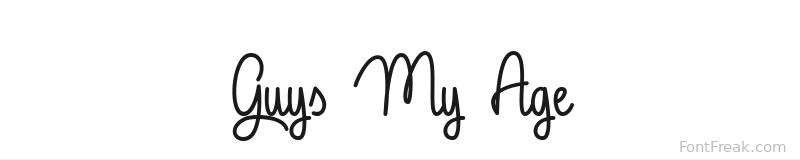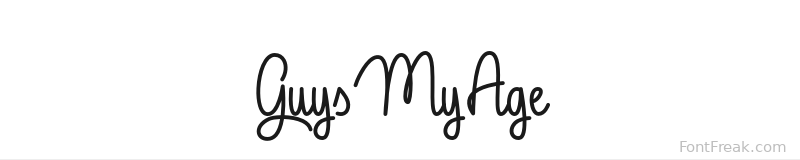
Guys My Age
The "Guys My Age" font by Misti Hammers is a captivating handwritten typeface that exudes a charming, playful character. This display font features a unique blend of fluid strokes and whimsical curves, making it an excellent choice for projects that require a personal touch. The overall stroke weight is moderately thick, providing a strong visual presence while maintaining legibility. The design incorporates varying contrast and spacing, contributing to its lively and engaging appearance. Decorative elements such as loops and playful swashes enhance its personality, making it stand out in any context.
This font is particularly well-suited for a variety of creative applications. It shines in wedding invitations, where its romantic flair can set the perfect tone for a special day. Additionally, it works beautifully on greeting cards, allowing for heartfelt messages to be conveyed in a visually appealing manner. Restaurant menus can benefit from its inviting style, enticing diners with a warm and friendly atmosphere. Moreover, "Guys My Age" is a great choice for social media graphics, helping content creators capture attention and convey their unique voice.
Target audiences for this font include graphic designers seeking to add a personal touch to their work, small business owners looking to enhance their branding, and content creators who want to engage their followers with appealing visuals. The versatility and charm of the "Guys My Age" font make it a valuable asset for anyone in the creative field.